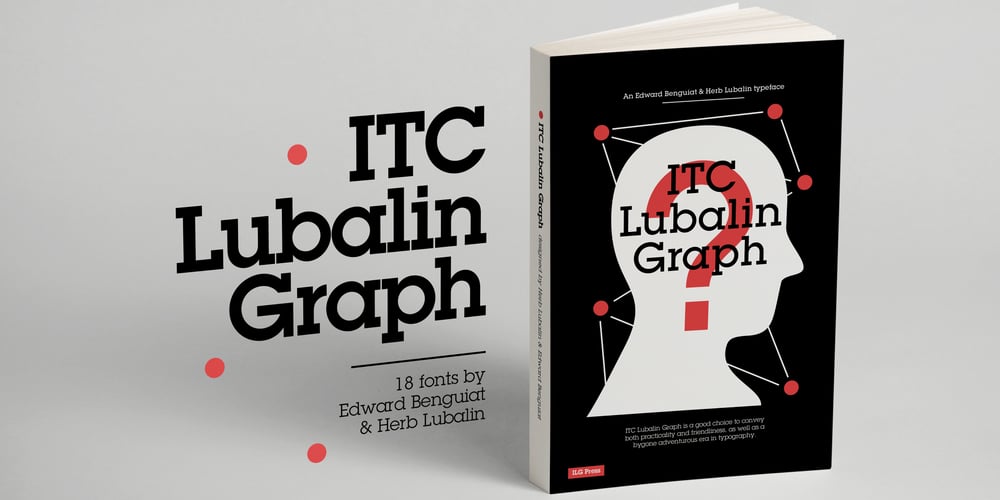
ITC Lubalin Graph
ITC Lubalin Graph font
ITC Lubalin Graph Font Family was designed by Edward Benguiat, Herb Lubalin and published by ITC. ITC Lubalin Graph contains 18 styles and family package options. ITC Lubalin Graph® was initially designed by Herb Lubalin and drawn to fit the requirements of typographic reproduction by Tony DiSpigna and Joe Sundwall in 1974. Its underlying forms are those of Lubalin’s previously released ITC Avant Garde Gothic, but its shapes were modified to accommodate large slab serifs. Its condensed weights, which include small caps and oldstyle figures, were later additions by Helga Jörgenson and Sigrid Engelmann in 1992. The family, with its generous x-height and overall tight fit has come to represent the typographic style of American graphic design in the 1970s. The typeface is at home when paired with mid-century modern design and spare sanses or more traditional text faces from the period. ITC Lubalin Graph covers four weights in its condensed width from Book to Bold, and five weights in its normal width.